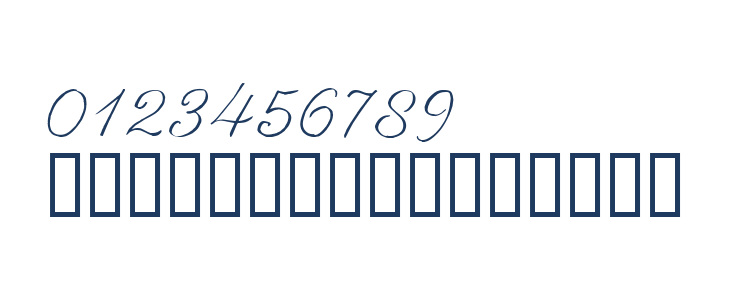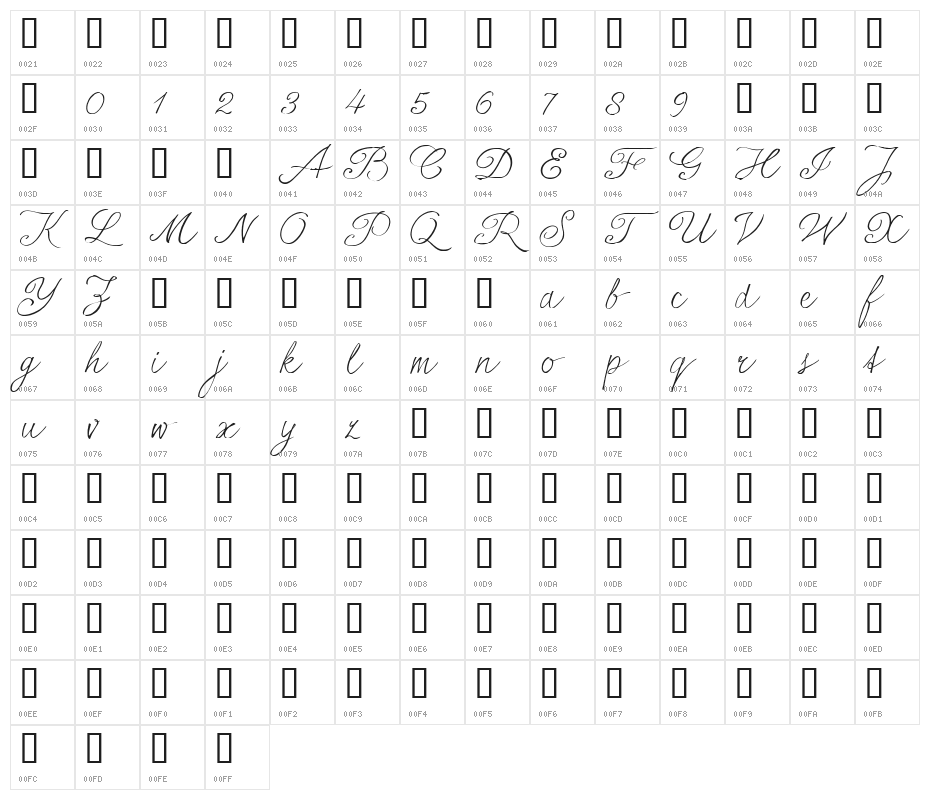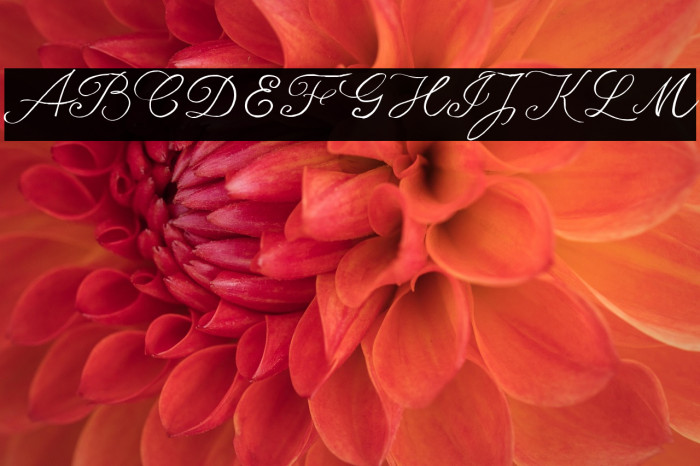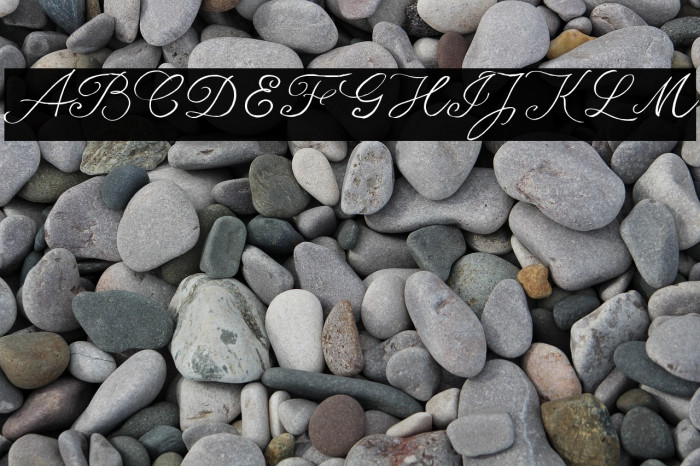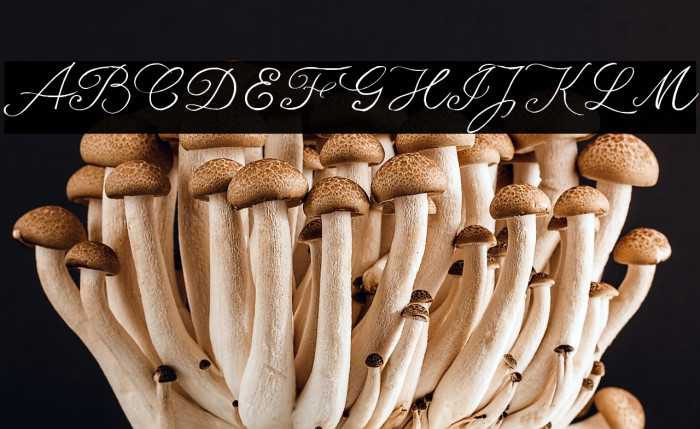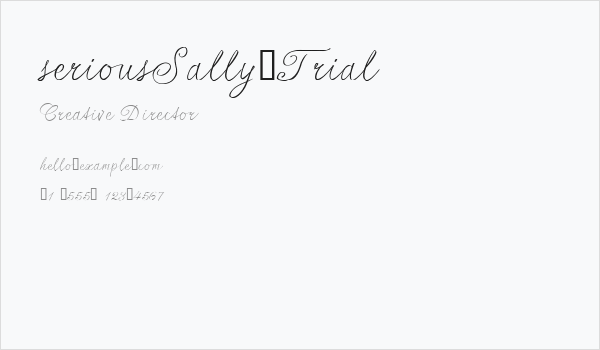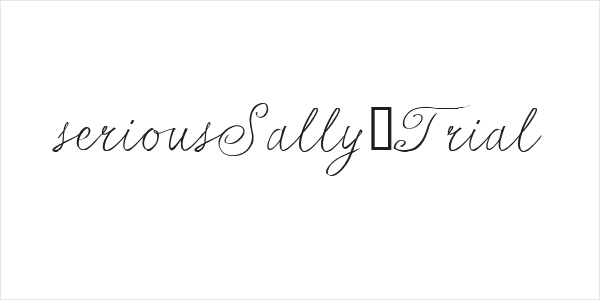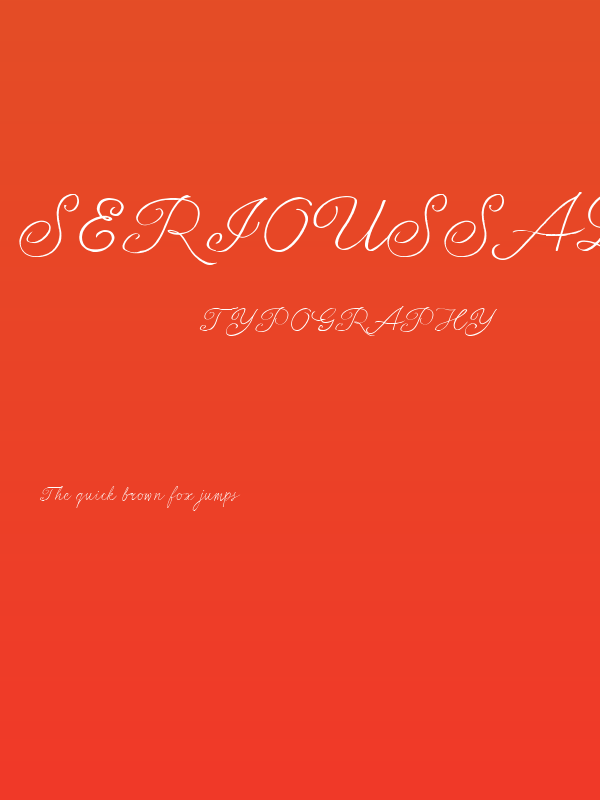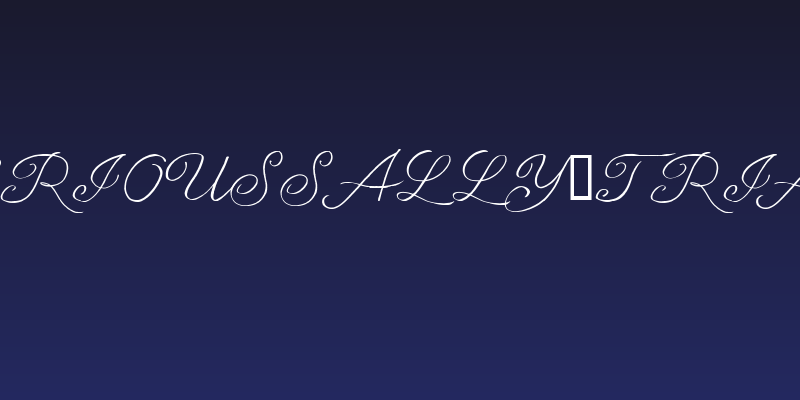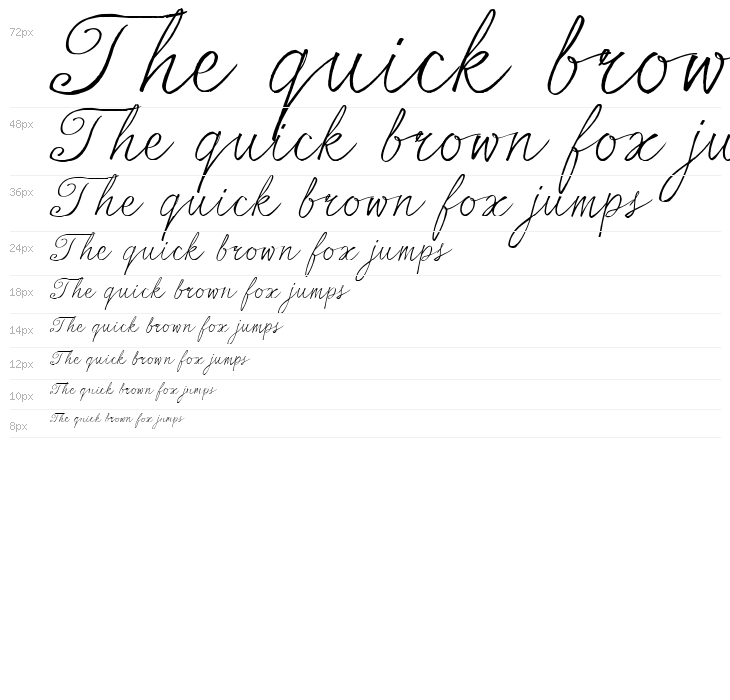
seriousSally_Trial Font
seriousSally_Trial Description
This elegant script font features flowing, cursive letters with a classic and sophisticated appearance. The uppercase letters are ornate and slightly larger than the lowercase, which are more streamlined yet maintain a graceful flow. The numerals are consistent with the script style, offering a cohesive look across all characters. The special characters are designed to match the overall aesthetic, ensuring seamless integration in text. This font exudes a sense of refinement and is ideal for projects requiring a touch of elegance.